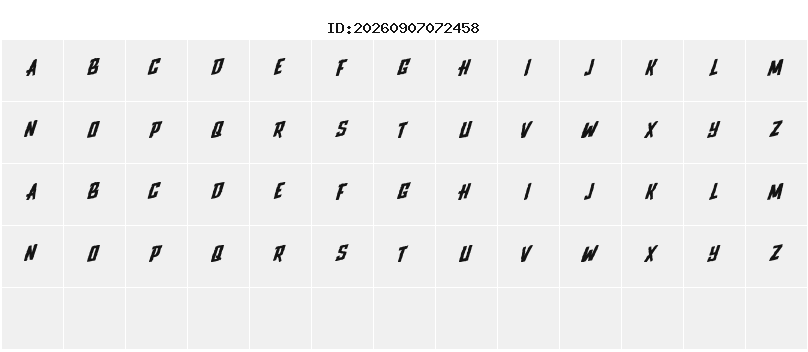
Upjohn  Rough Preview
• Font Name: Upjohn Rough
• Font ID: KonstantineStudio: Upjohn - Rough: 2014
• Full Font Name: Upjohn - Rough
• PostScript Name: Upjohn-Rough
• Designer: Konstantine Studio
• Manufacturer: Konstantine Studio
About Upjohn Rough.ttf
Upjohn Rough.ttf is a modern, elegant sans-serif font designed for ultimate readability and visual harmony. Perfect for branding, headlines, web design, and print materials.